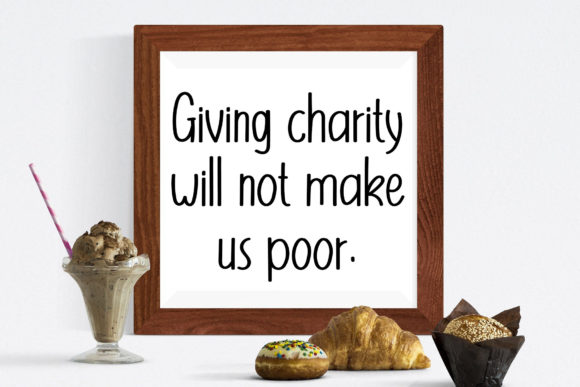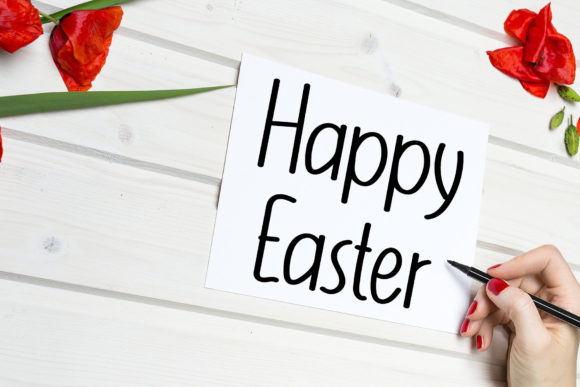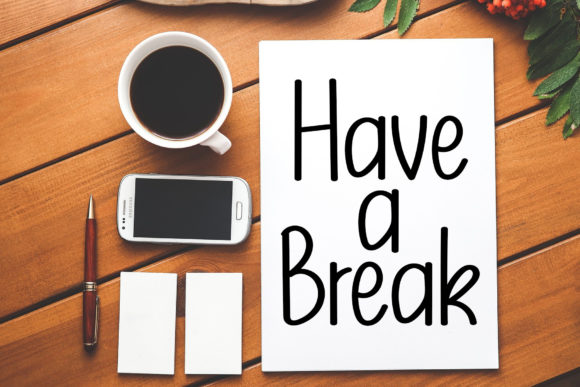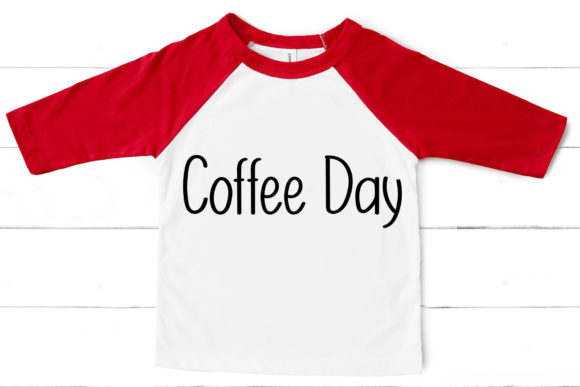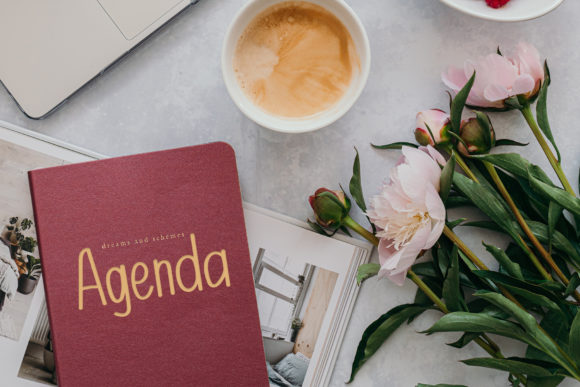
Gabriella Font
About Gabriella Font
Gabriella is a sweet and friendly handwritten font. Its natural and unique style makes it incredibly fitting to a large pool of designs. Add it confidently to your projects, and you will love the results.